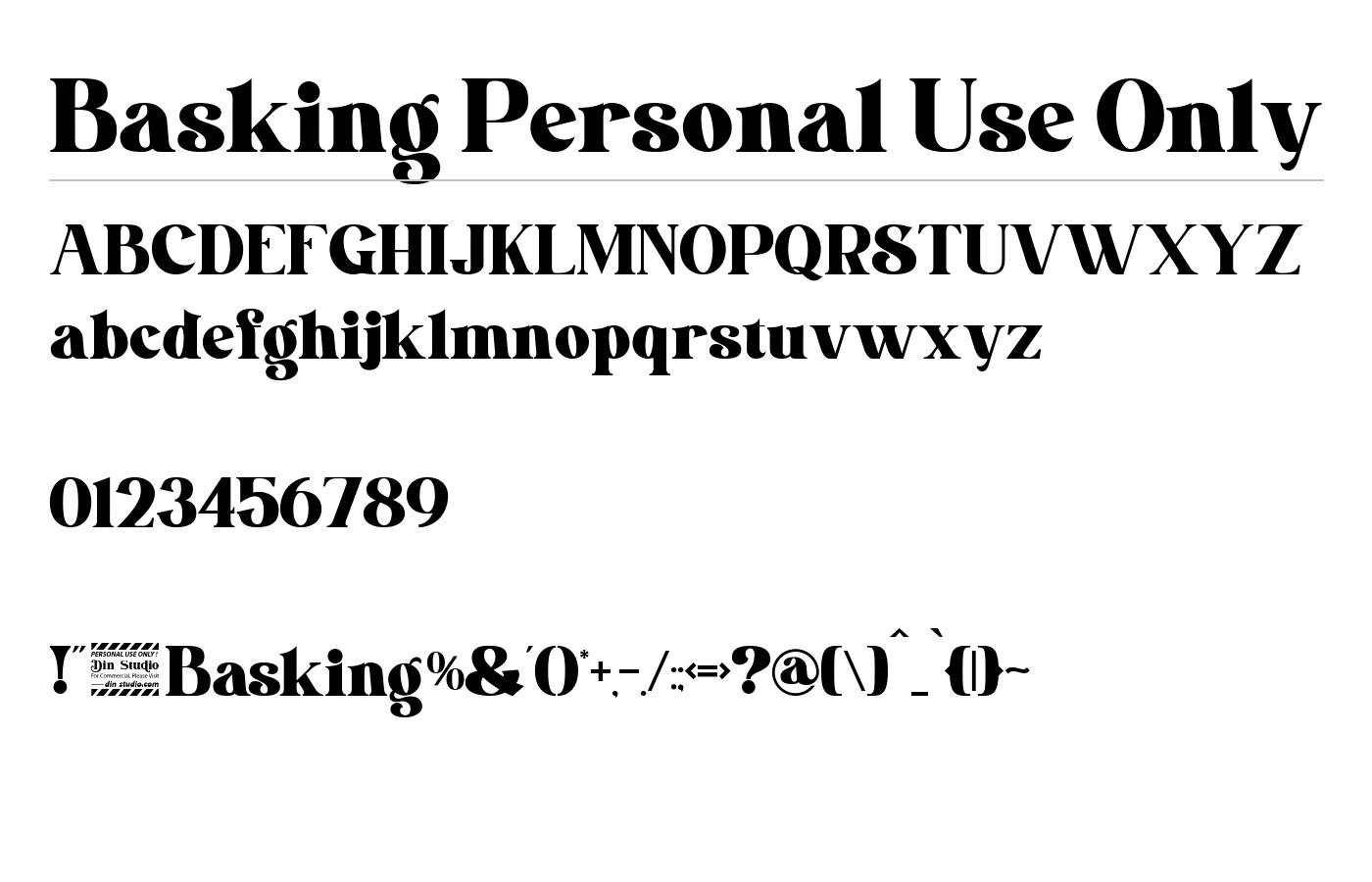
Basking Personal Use Only is a bold, serif typeface with strong contrast between thick and thin strokes, giving it a classic and elegant feel. Its distinctive bracketed serifs and refined letterforms make it ideal for creating a sophisticated and timeless look, perfect for branding, editorial headlines, and upscale packaging. This font conveys a sense of tradition and luxury while maintaining clear readability.
Basking Personal Use Only Font
About Basking Personal Use Only Font
| Font family | Basking Personal Use Only Font |